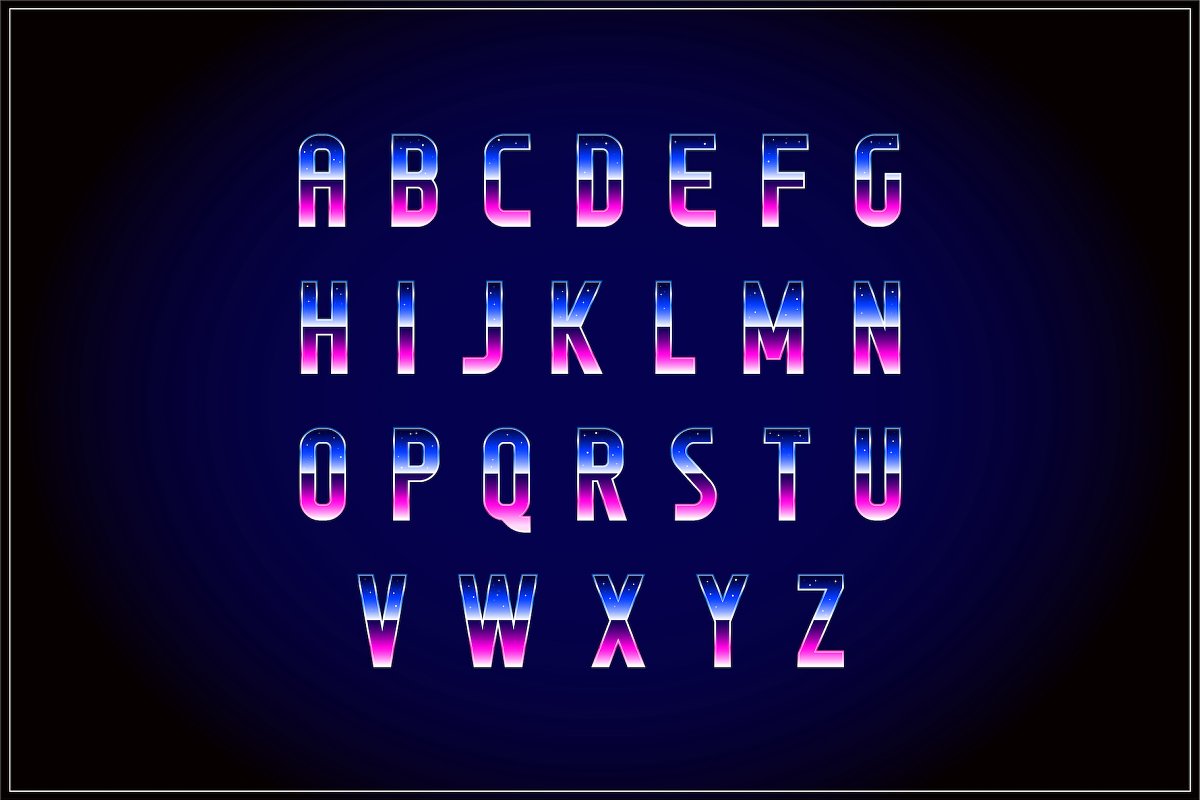
About the Retrofuturism OTF Vapor Wave Font
This pack contains Retrofuturism trendy Vaporwave, Synthwave, Retrowave Styled Color OpenType Font in , OTF file format with lower-case, symbols and numbers (Adobe Illustrator 2018+), Also this pack contains 4 additional vaporwave backgrounds + 2 sample flyers, Each letter and number also introduced in big size PNGs and PSD’s with transparency, SET INCLUDING:Retrofuturism Color OTF Font (Upper Case, Lower Case, Numbers, Symbols (NEW))10 EPS files with letters, numbers, symbols, backgrounds and sample flyers